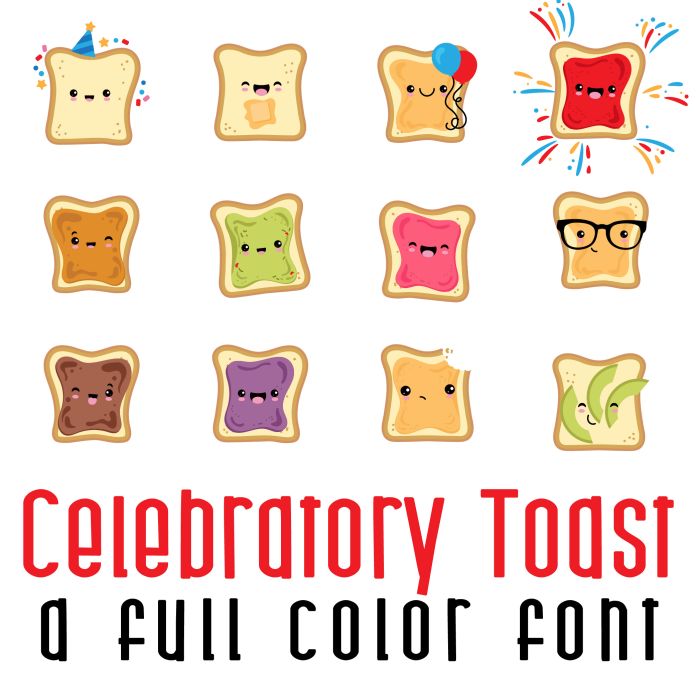
This fun full color font features 26 kawaii style toast celebrating. Use for cards, crafts, decor, gifts, planner stickers, scrapbook pages, classrooms and more!!